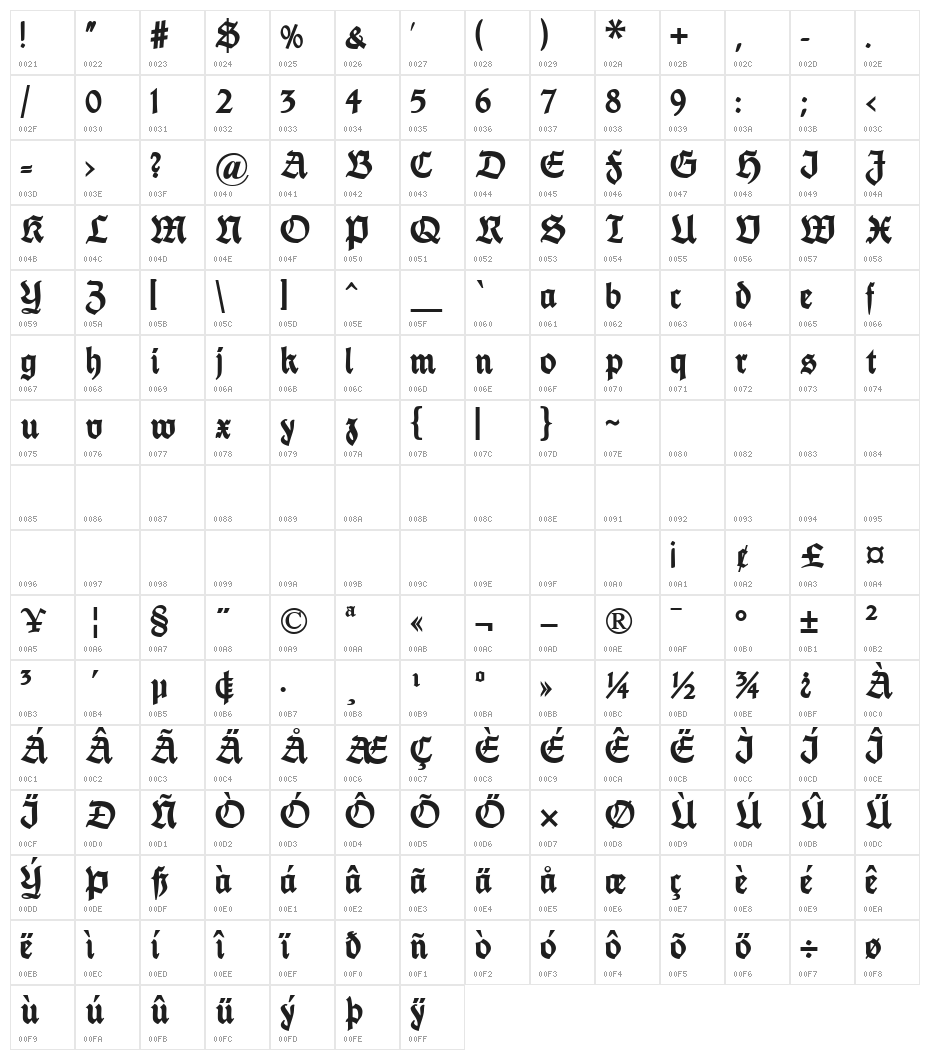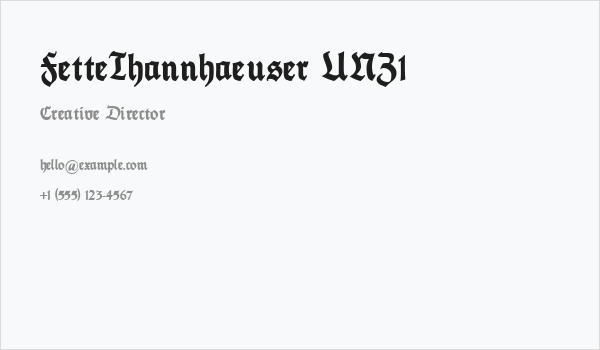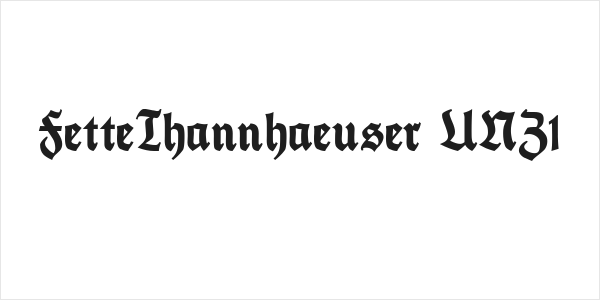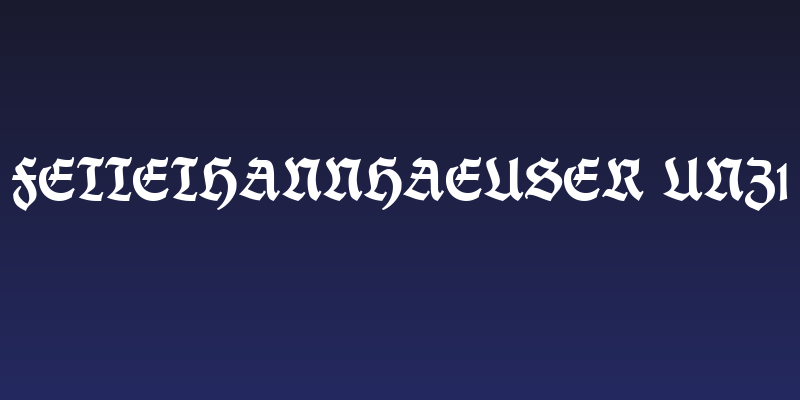
FetteThannhaeuser UNZ1 Font
FetteThannhaeuser UNZ1 Description
This font exhibits a bold and dramatic style, characterized by its intricate and ornate letterforms. The strokes are thick and angular, with sharp edges and a distinct Gothic influence. The uppercase letters are particularly elaborate, featuring pointed serifs and decorative flourishes that give the font a historic and authoritative presence. The lowercase letters maintain the same level of detail, ensuring consistency throughout the typeface. The numerals and special characters are equally stylized, making this font suitable for projects that require a strong visual impact.